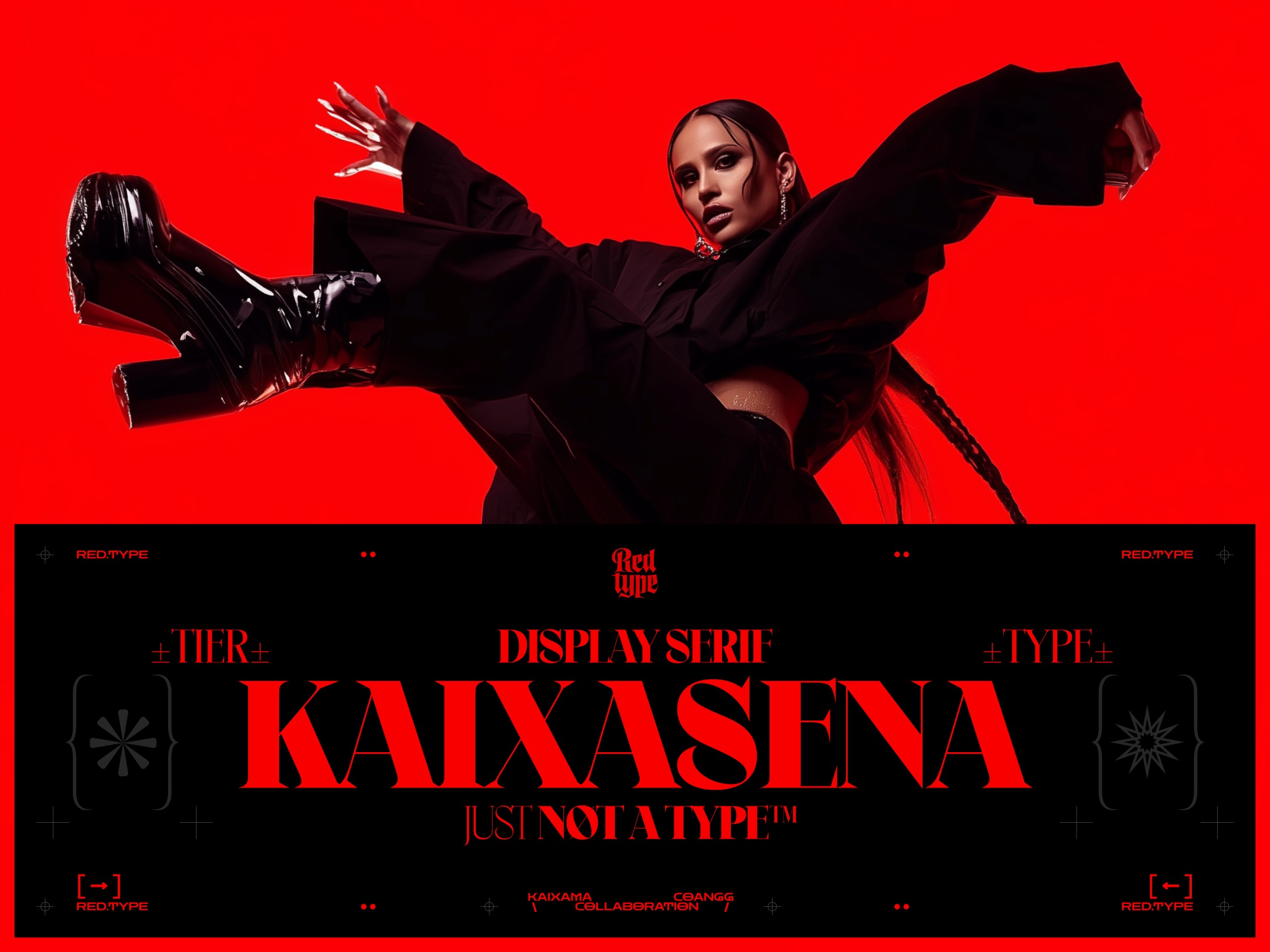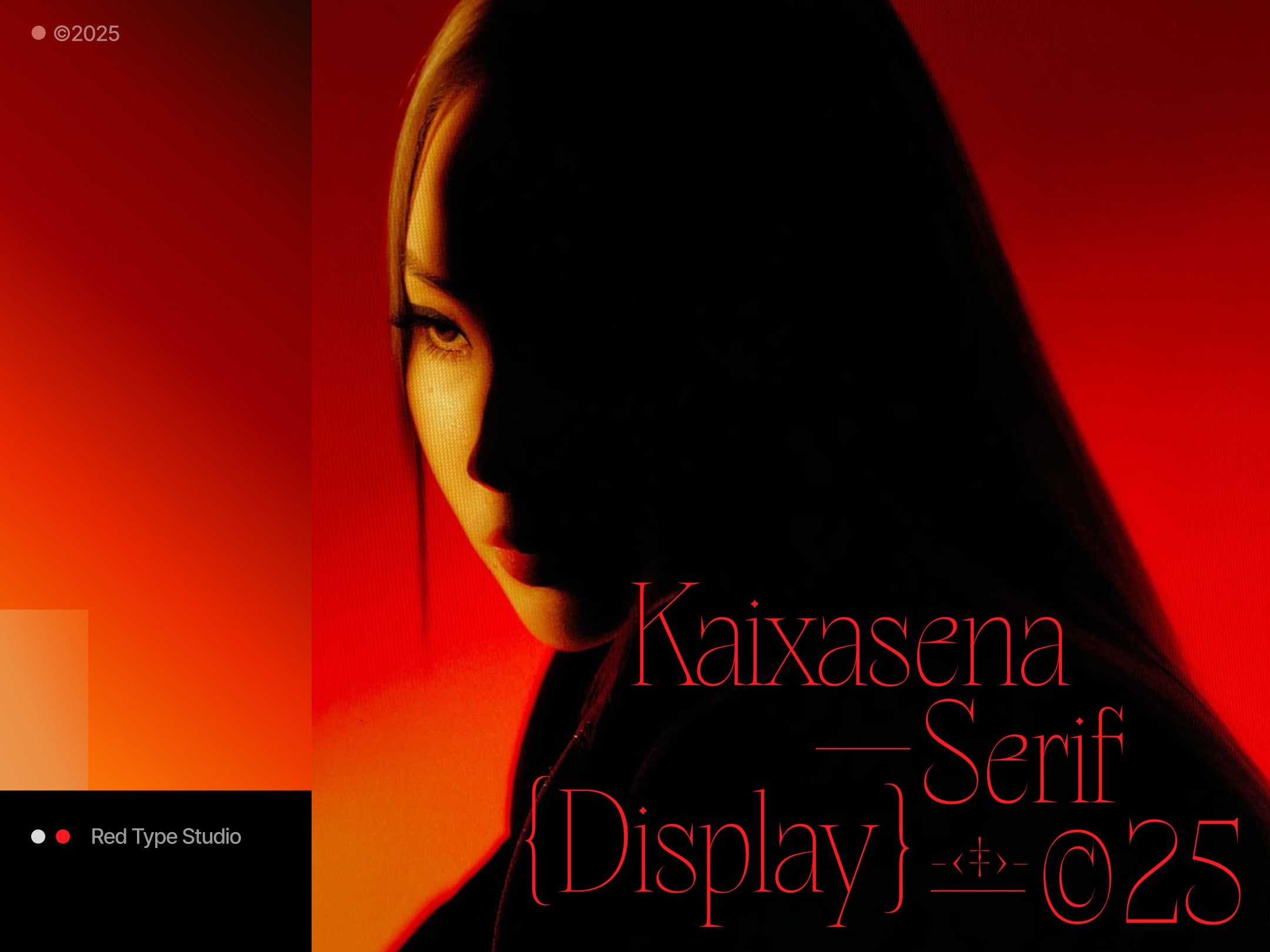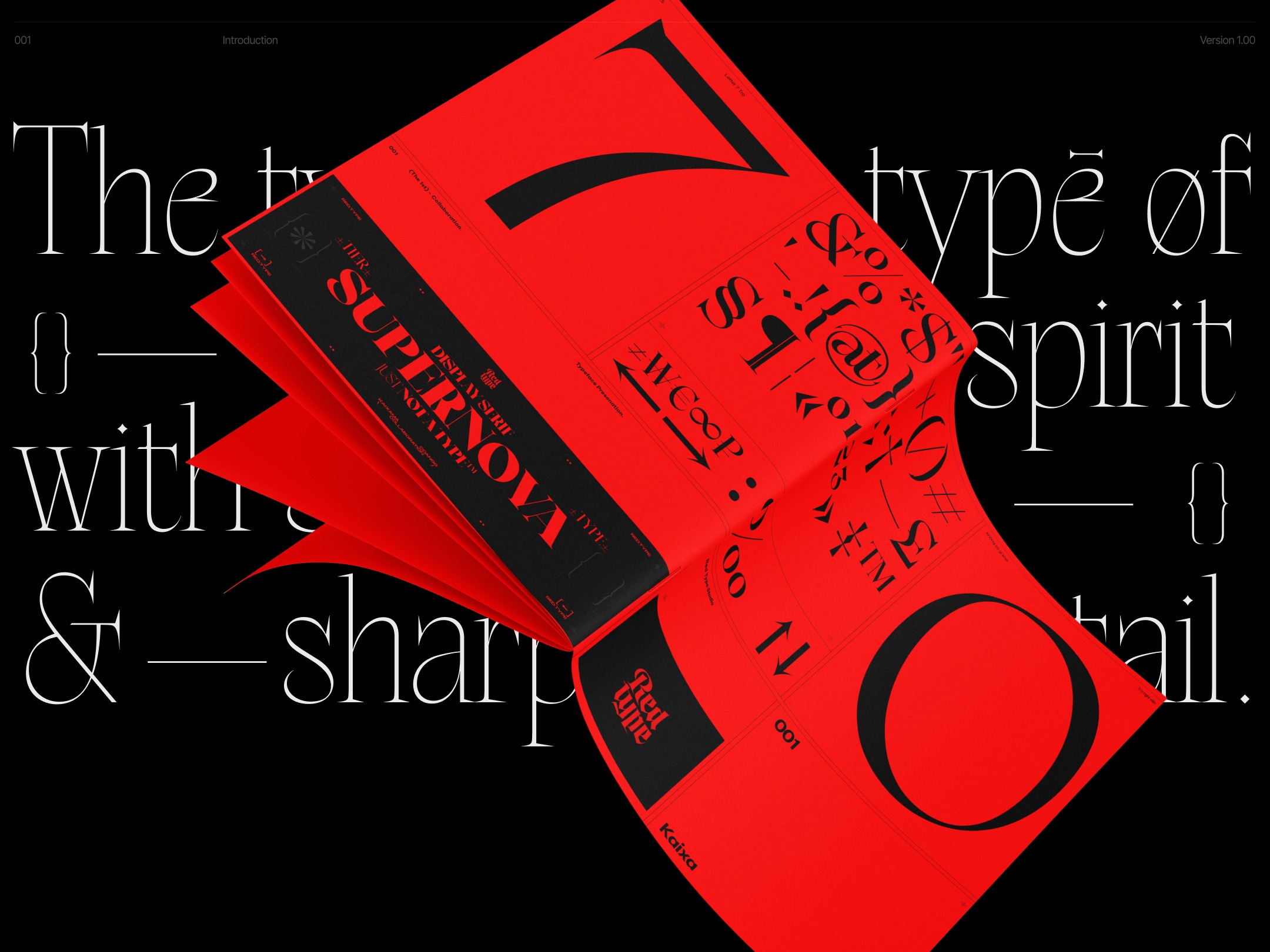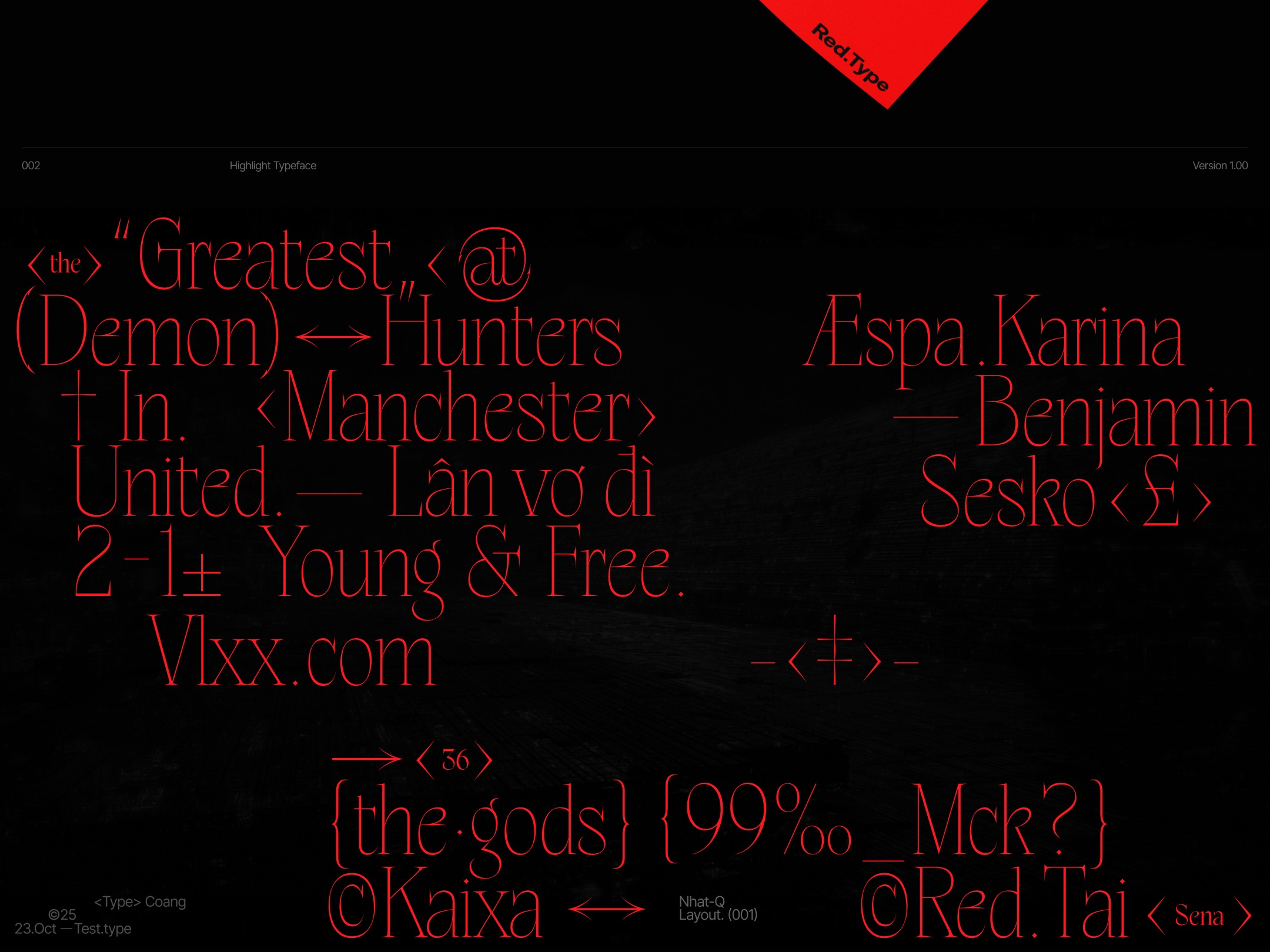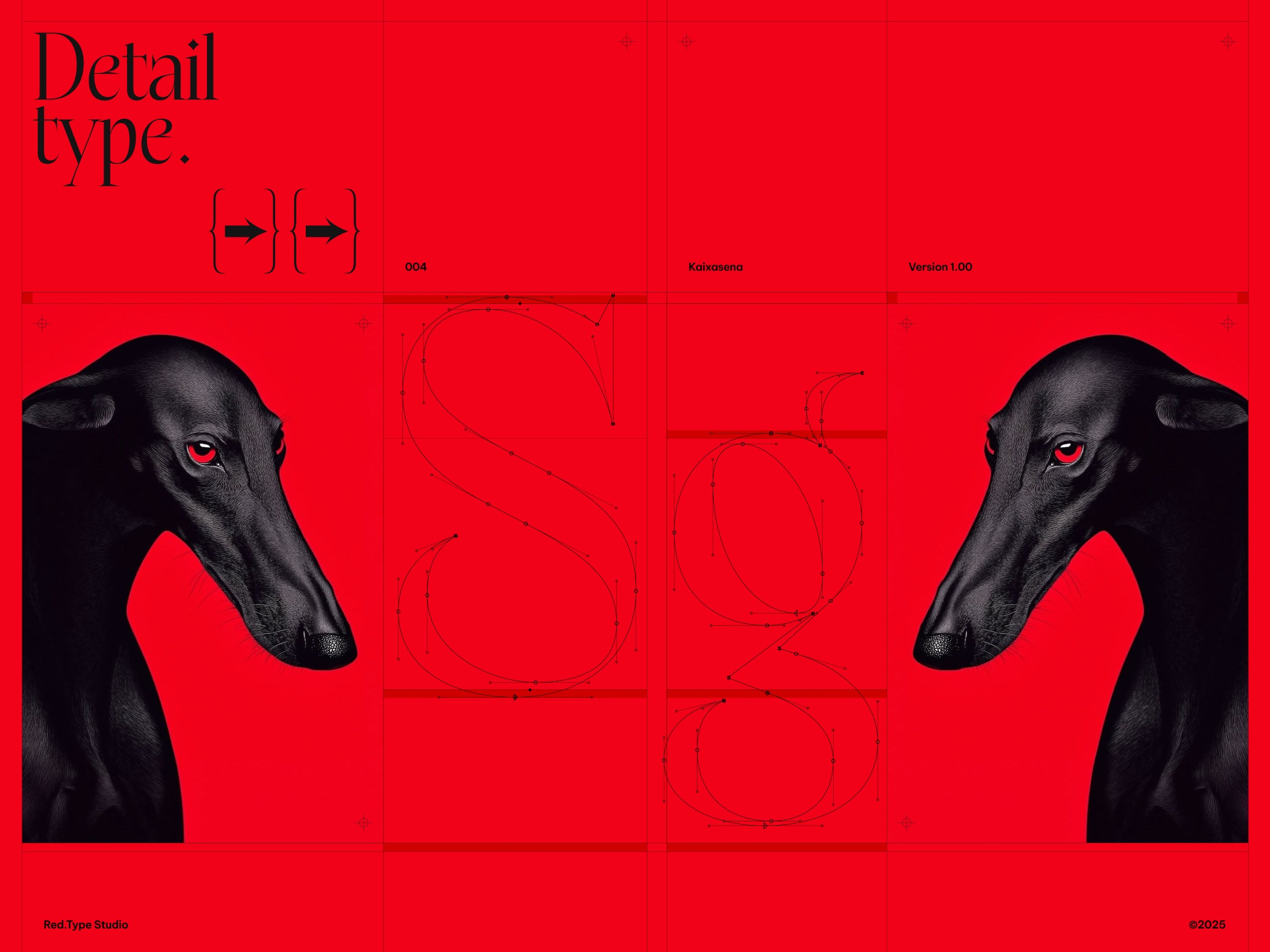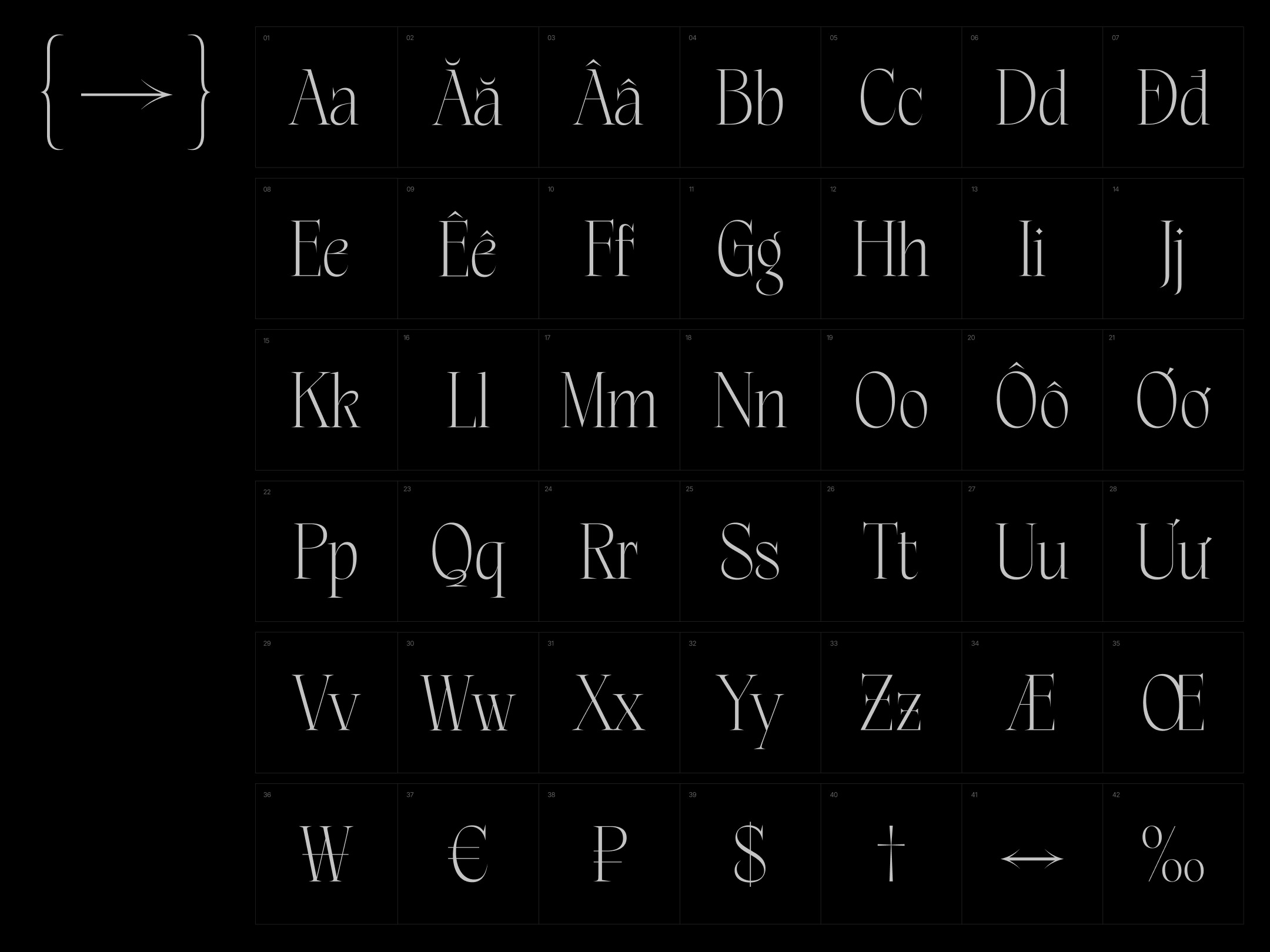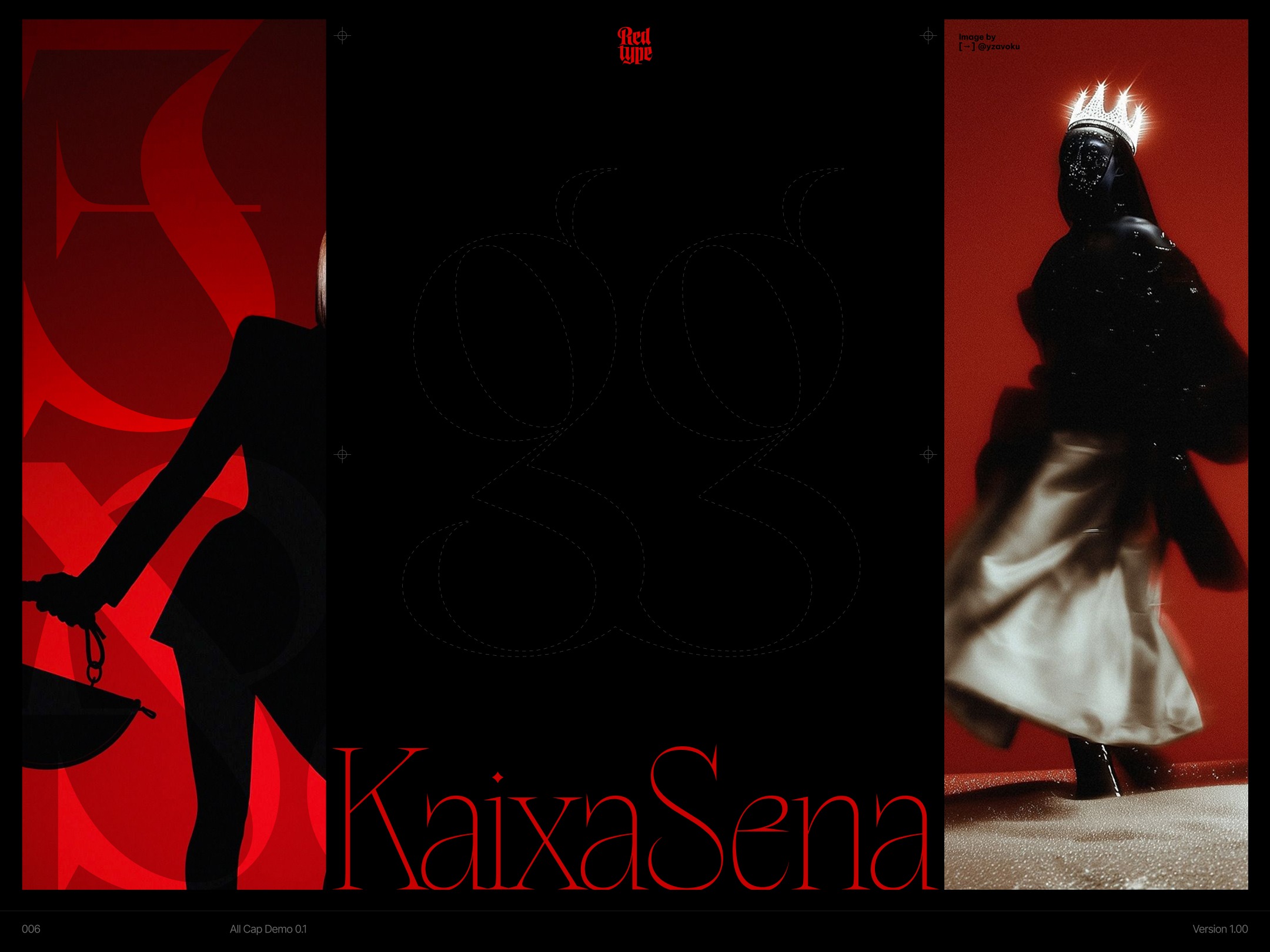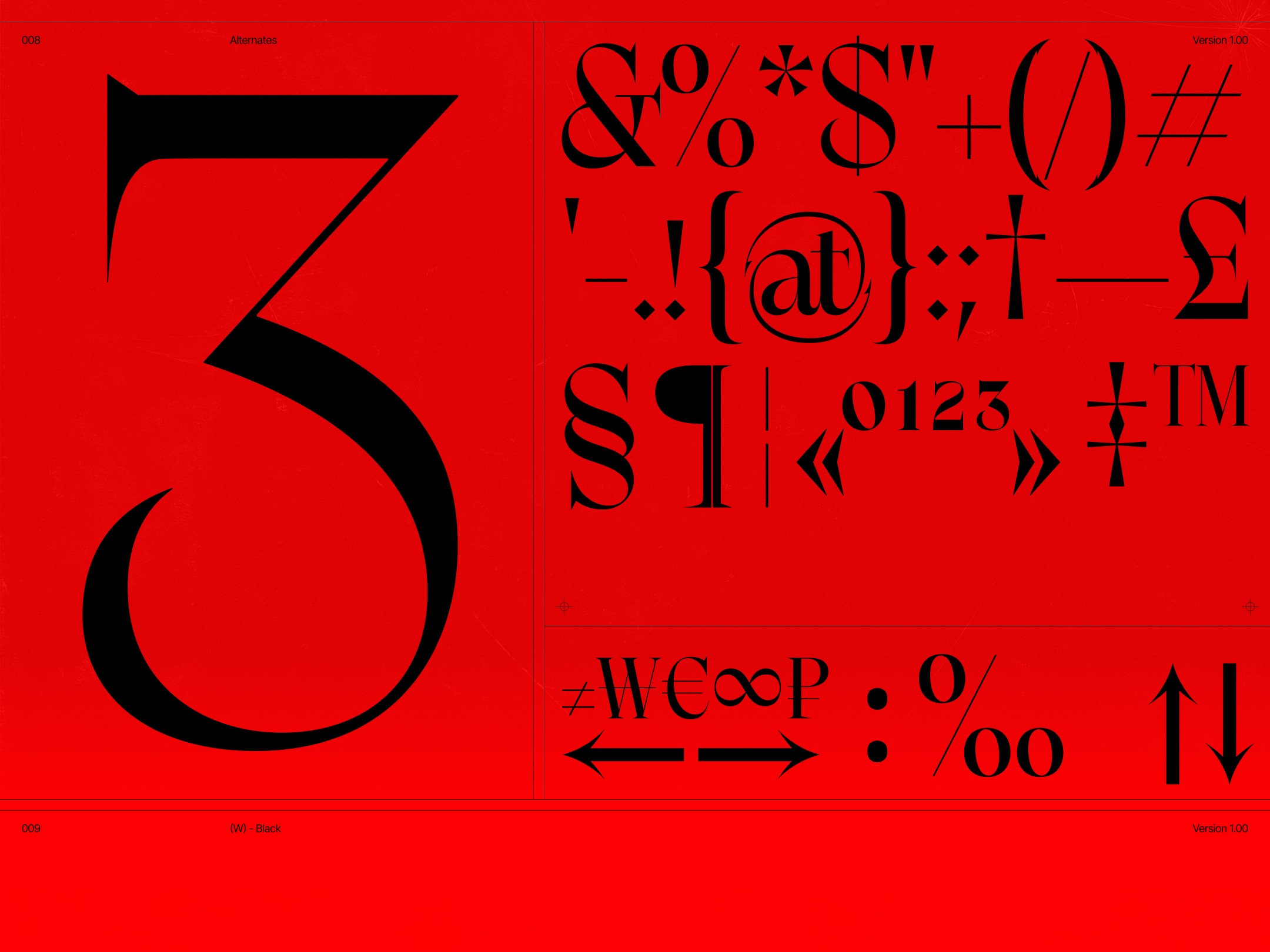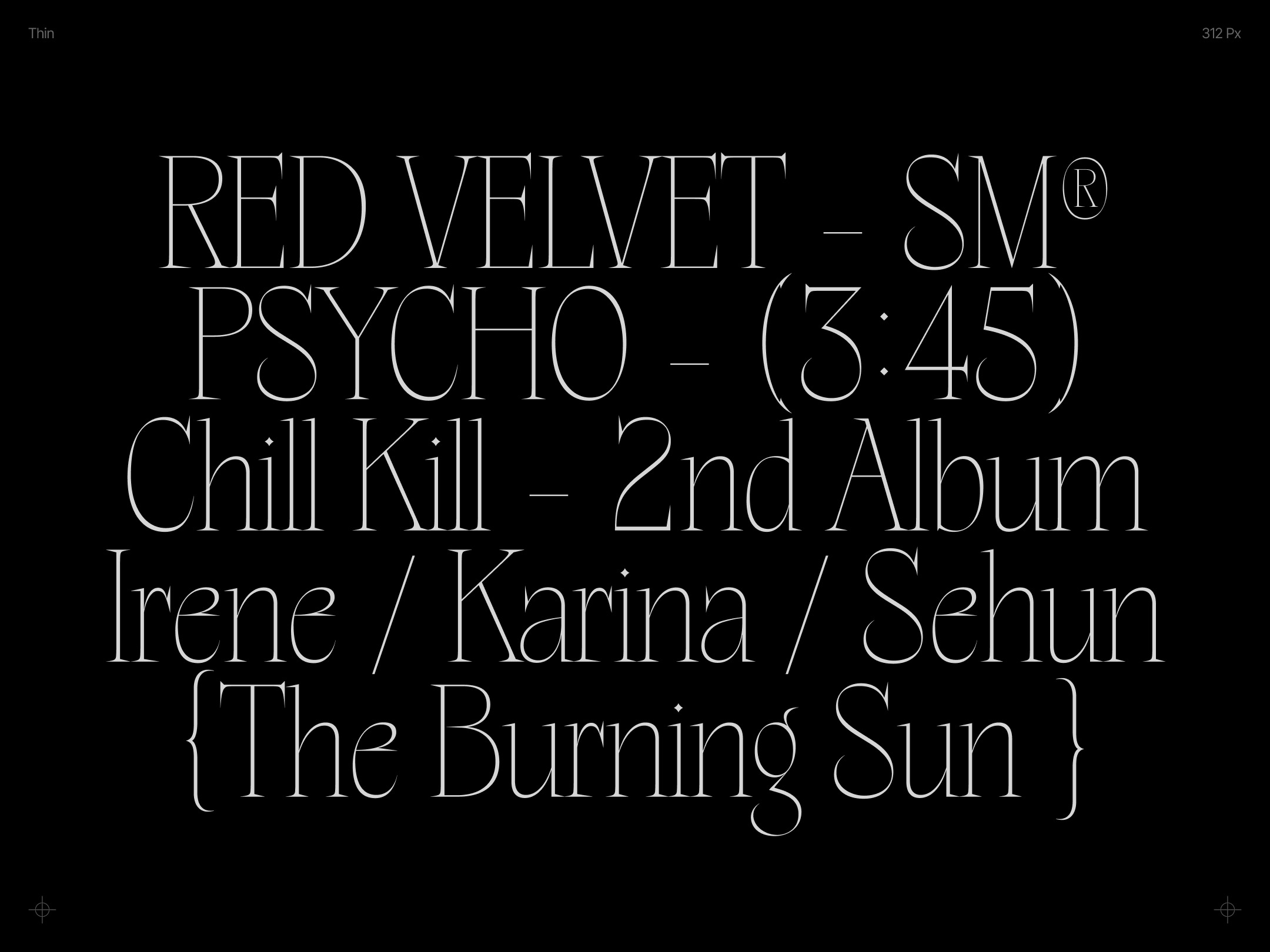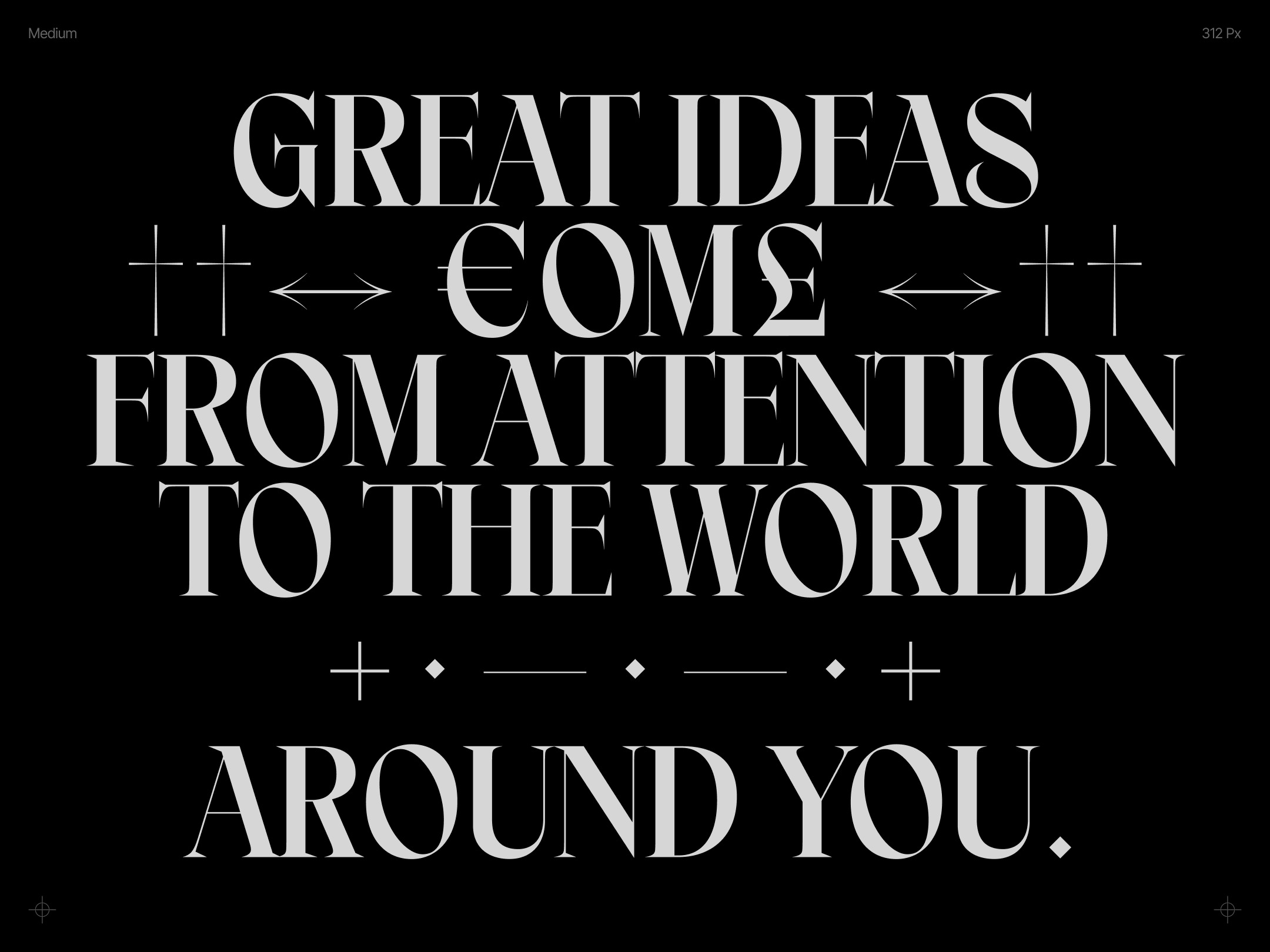
Kaixasena - Display Serif Typeface
by Kaixa · Nov 2025
Kaixasena - Display Serif Typeface
Collab with @redtype.studio 2025 has been a wonderful year for me. After the success of Niki Studio — a creative website project that has received several awards — I realized that my passion for typography remains stronger than ever. In my previous works, I mainly showcased my typography skills through existing typefaces, but this time, I asked myself: What if I created a typeface of my own?That question led me to collaborate with Nhat Quang, a talented type designer from Vietnam. Together, we developed Kaixasena, a typeface inspired by my nickname “Kaixa” and “Sena” — a famous streamer known for his bold personality. In this project, I worked as the Art Director, defining the visual concept and aesthetic direction — sharp, daring, and expressive — while Quang focused on the type development. Later, I experimented with layouts using Kaixasena and curated the final showcase now uploaded on Behance.